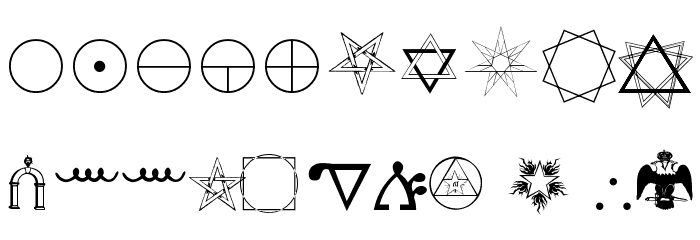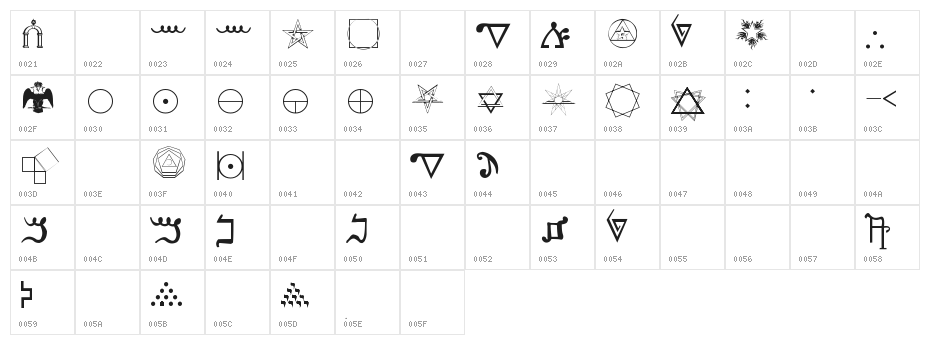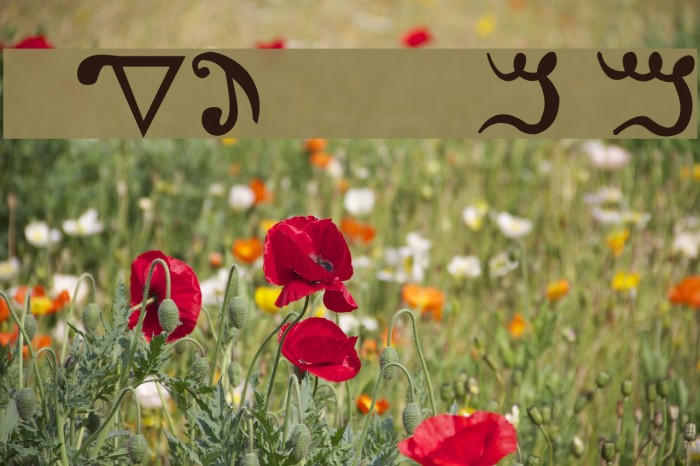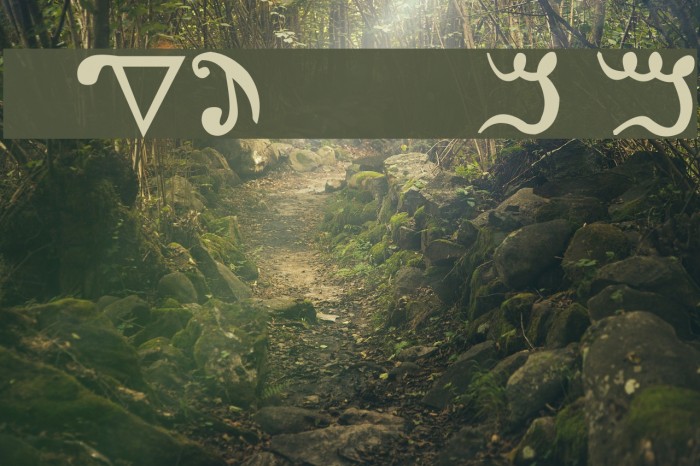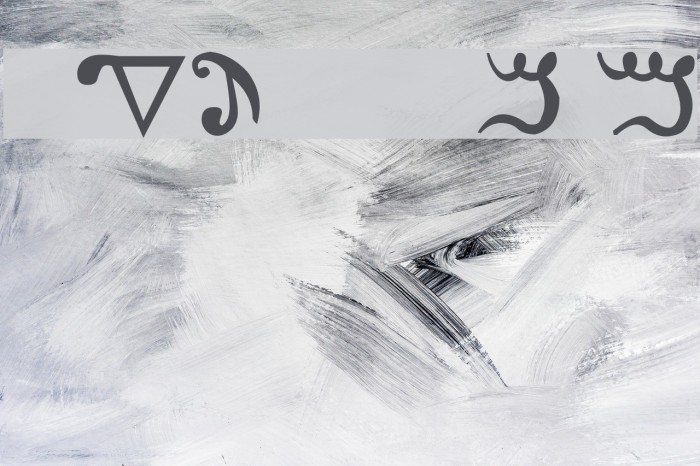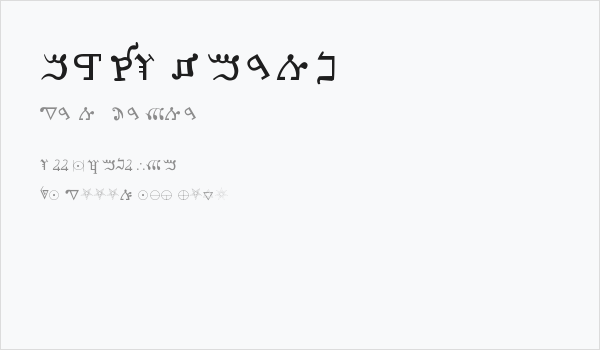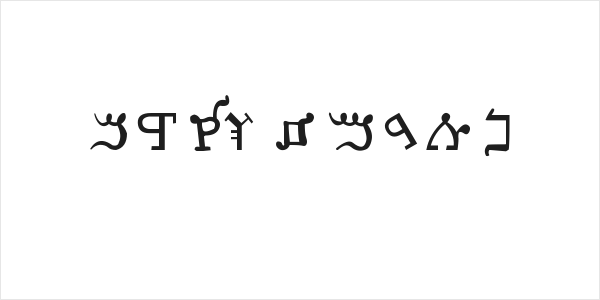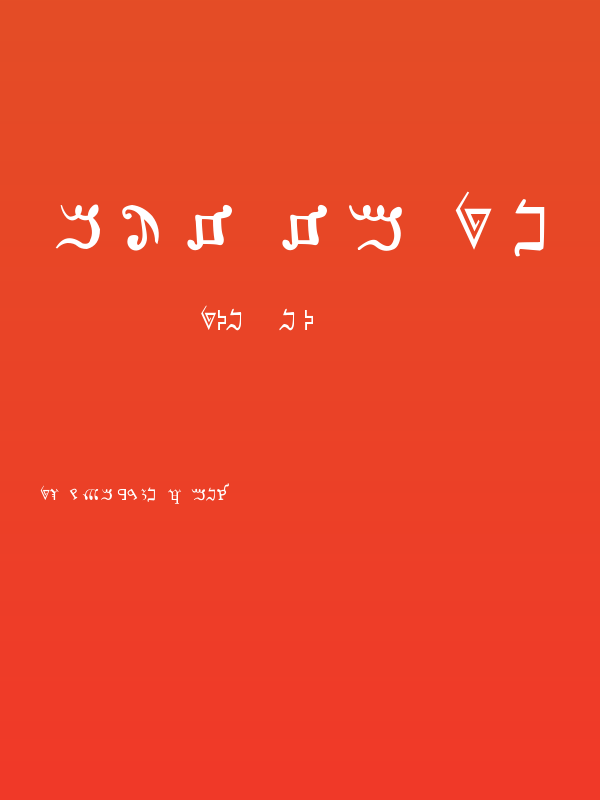
Kadosh Samaritan Font
Kadosh Samaritan Description
This design features a collection of intricate symbols and characters that appear to be inspired by ancient scripts or esoteric symbols. The characters are bold and have a decorative flair, with many incorporating geometric shapes and unique flourishes. The symbols range from simple circles and lines to complex star shapes and abstract forms. The overall aesthetic is mystical and ceremonial, suggesting a connection to historical or spiritual themes. The characters are not part of a traditional alphabet but rather a series of symbolic representations.
| Overall Style | Mystical, Ceremonial, Decorative |
| Use Case | Logos, Posters, Book Covers |
| Proposed Projects | This design could be used in projects related to historical or spiritual themes, such as book covers, posters for events, or as part of a branding package for a mystical or esoteric brand. |